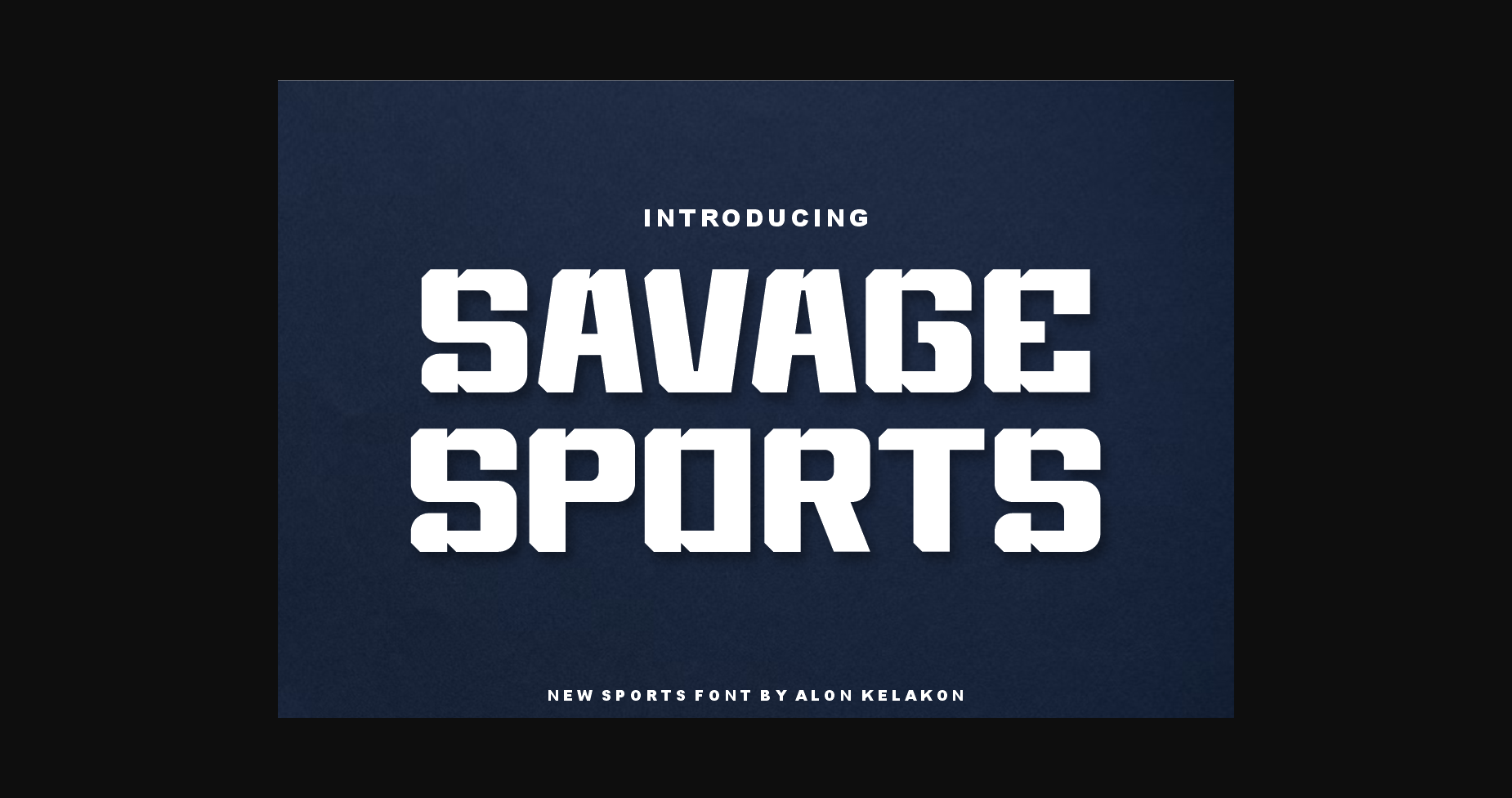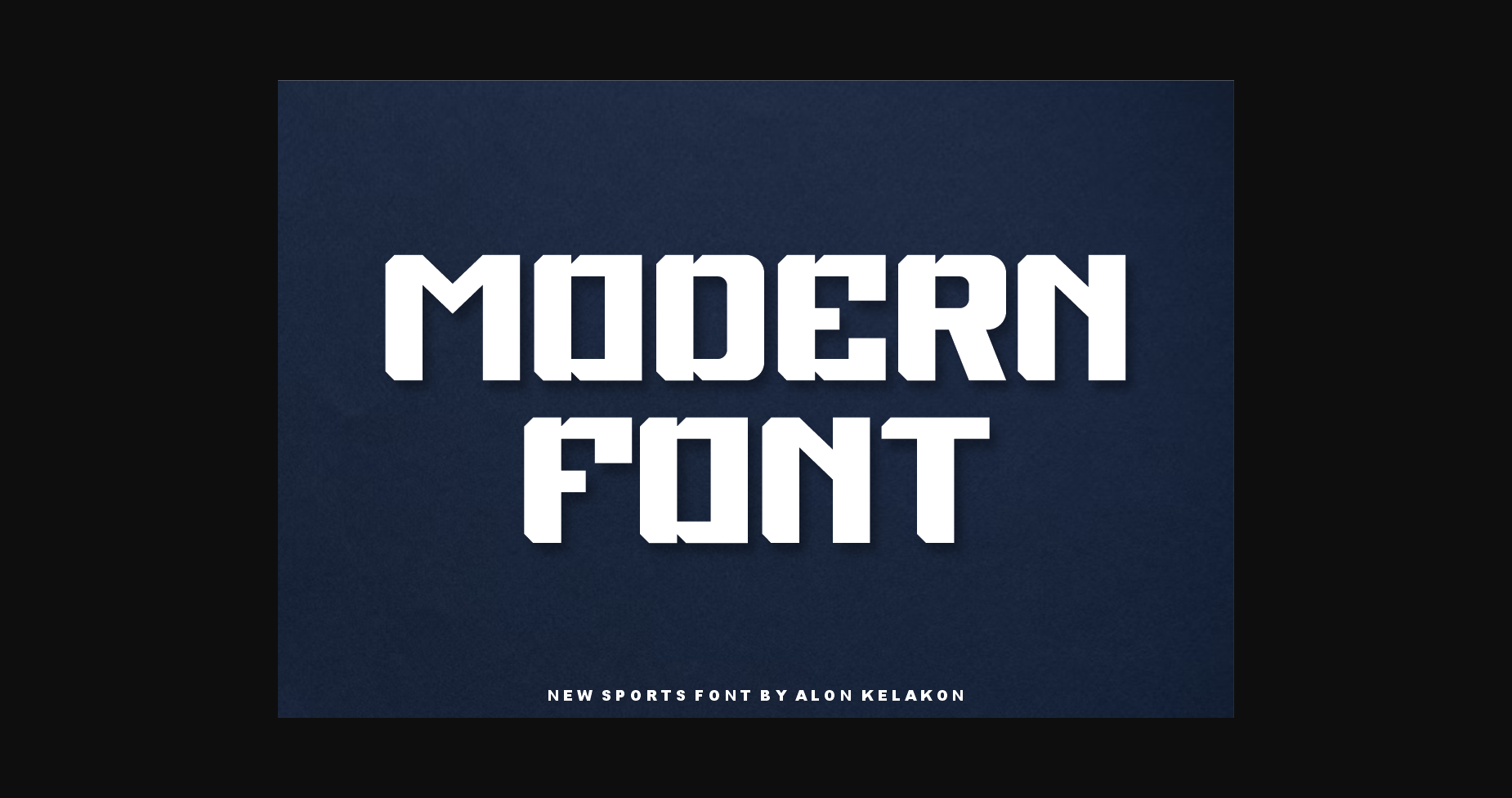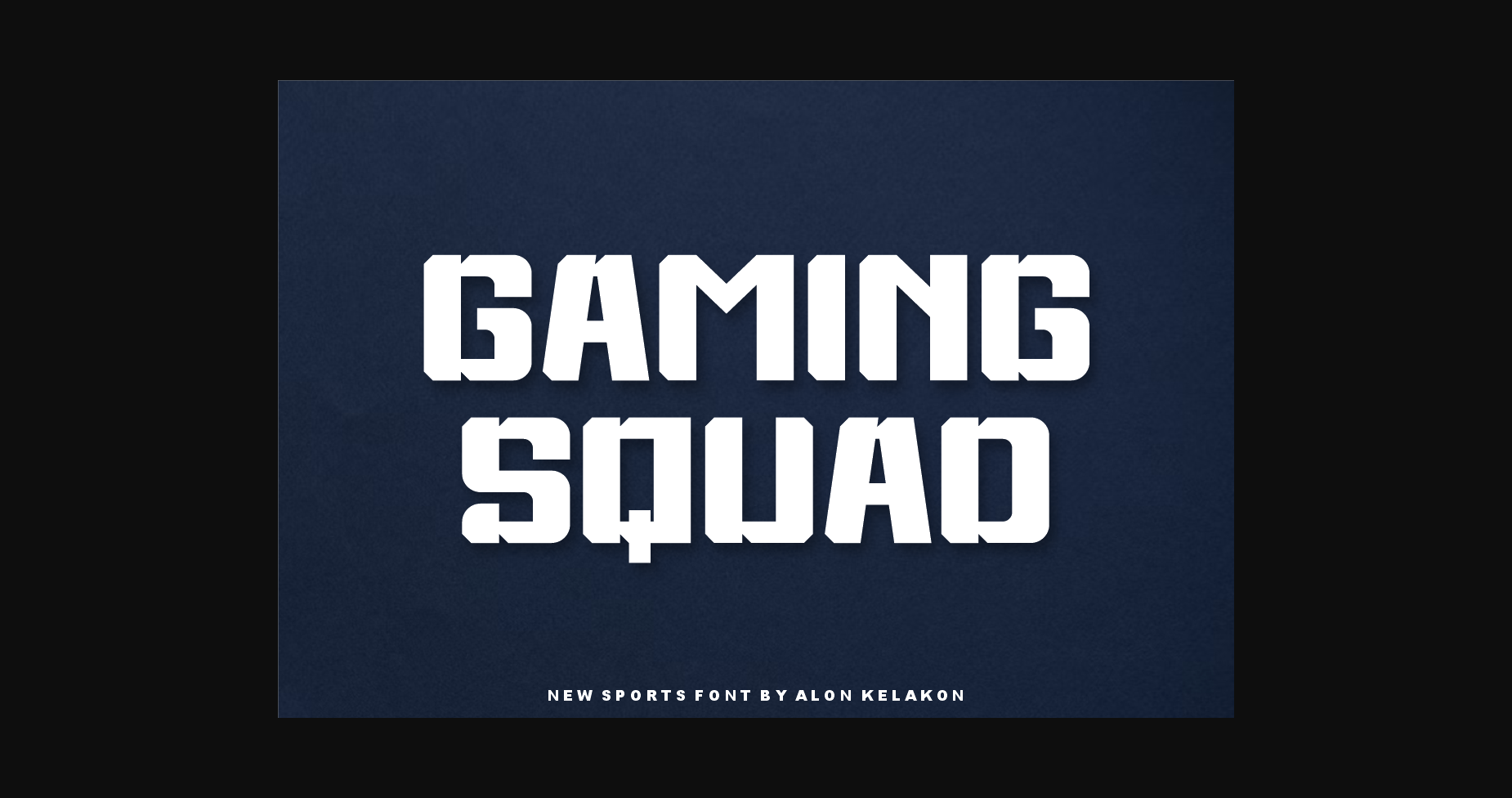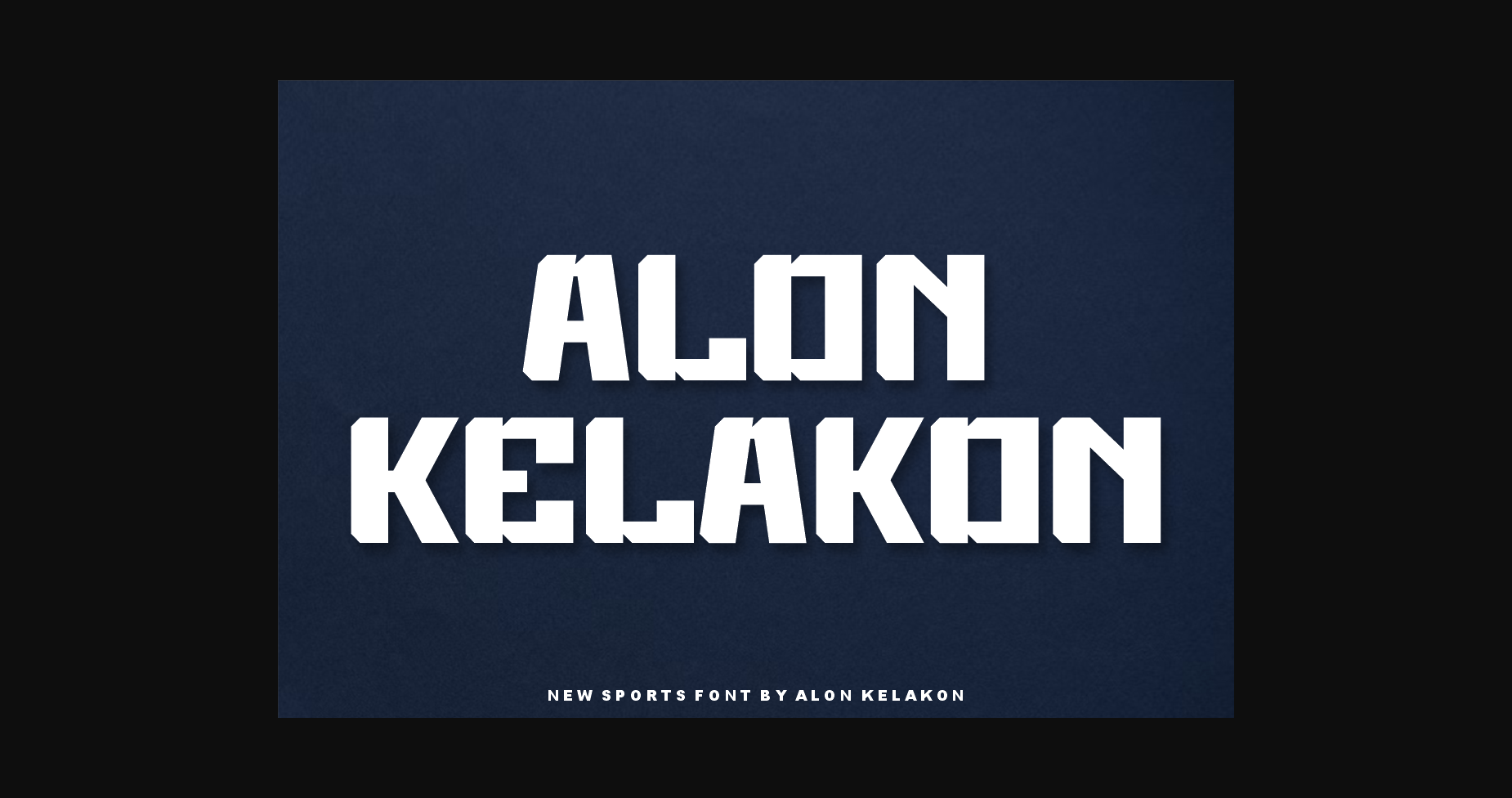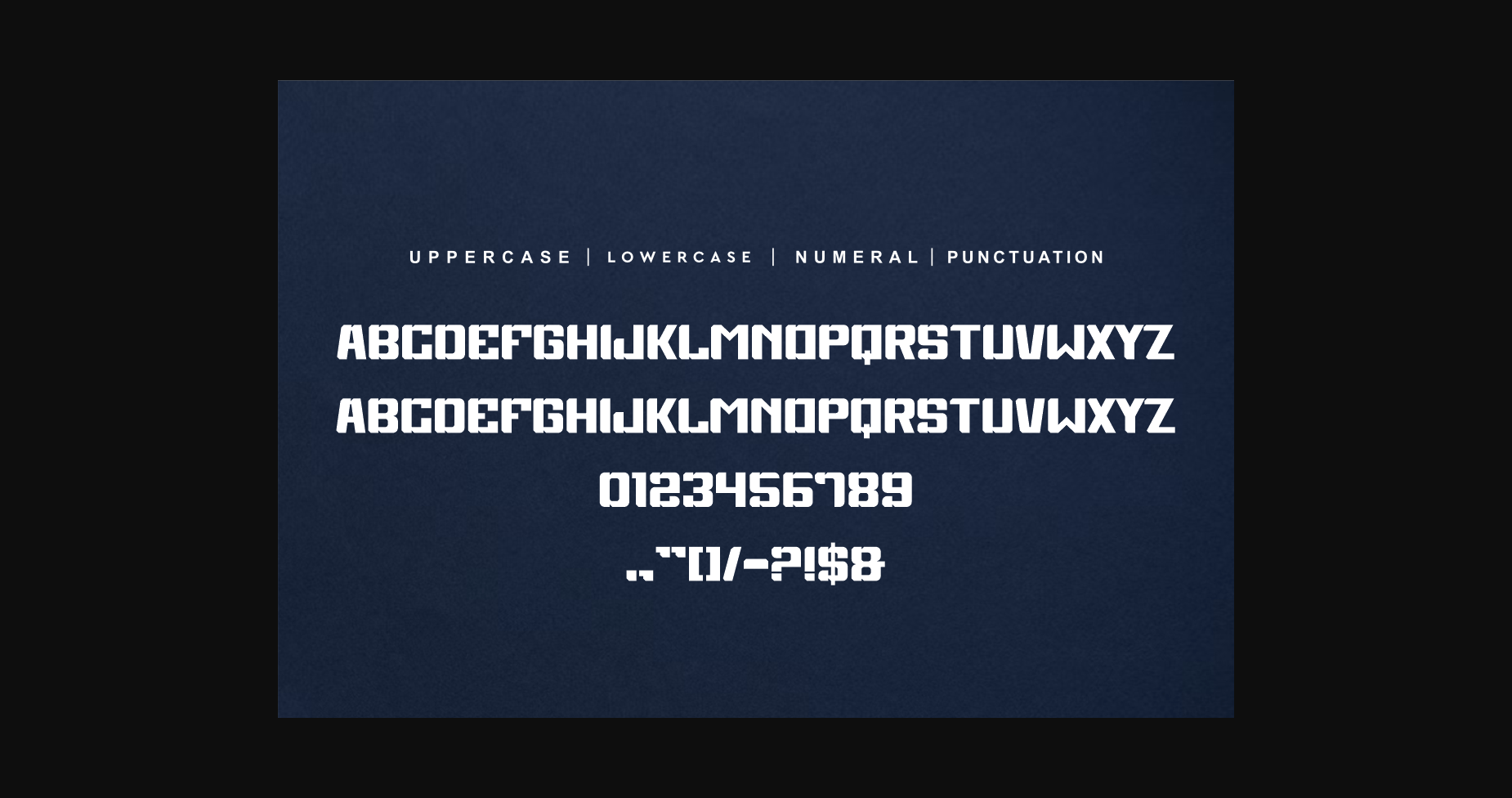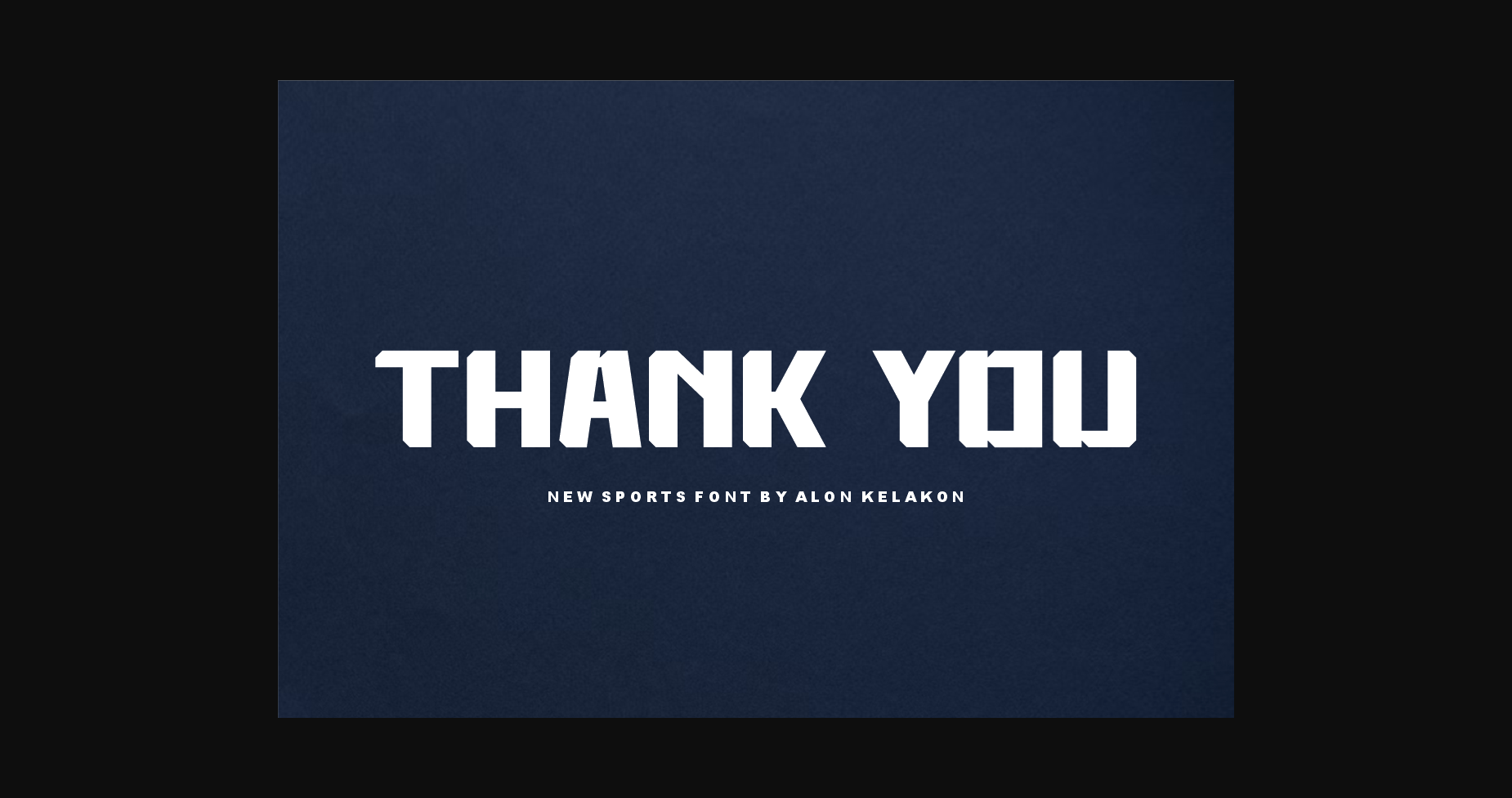
Savage Sports Font
About Savage Sports Font
Savage Sports is a robust font designed to draw attention and highlight any project that requires a bold feel. It looks powerful and is created to add a vibrant touch to your sport-inspired designs. Its trendy letters are designed for sport, automotive, car moto speed races, and other dynamic scenes.